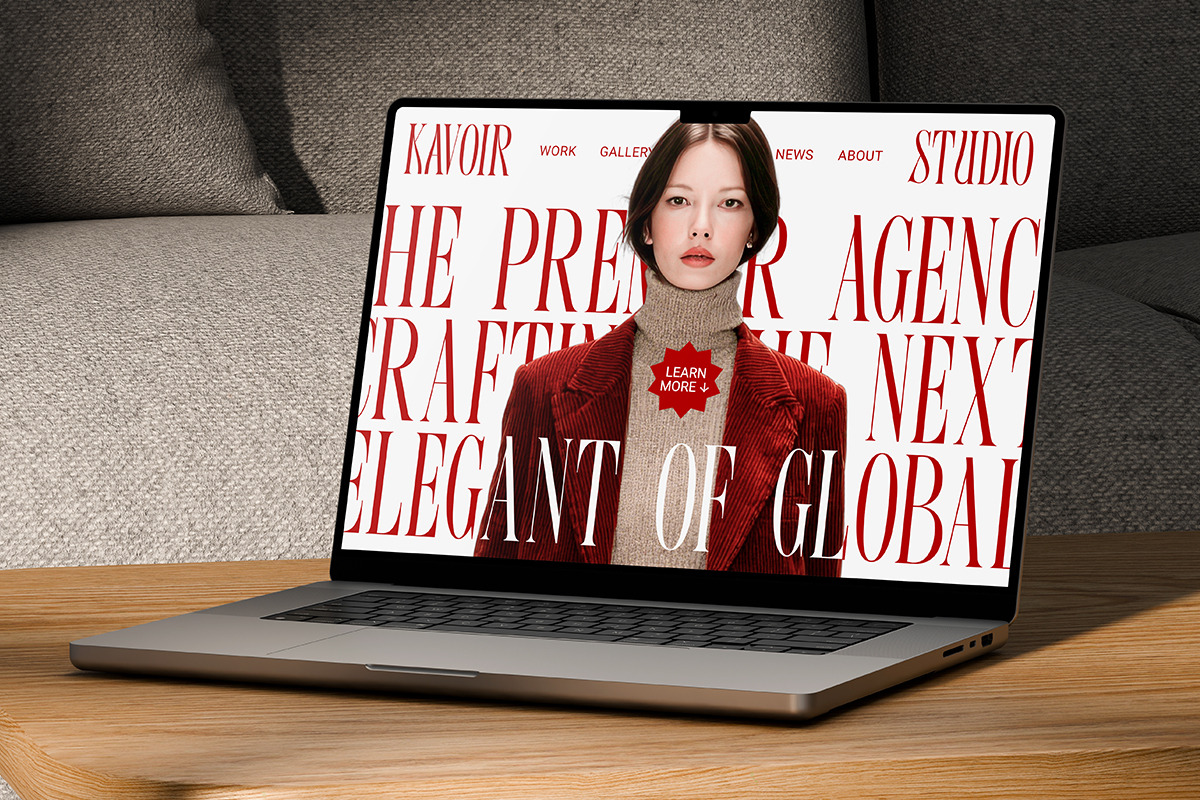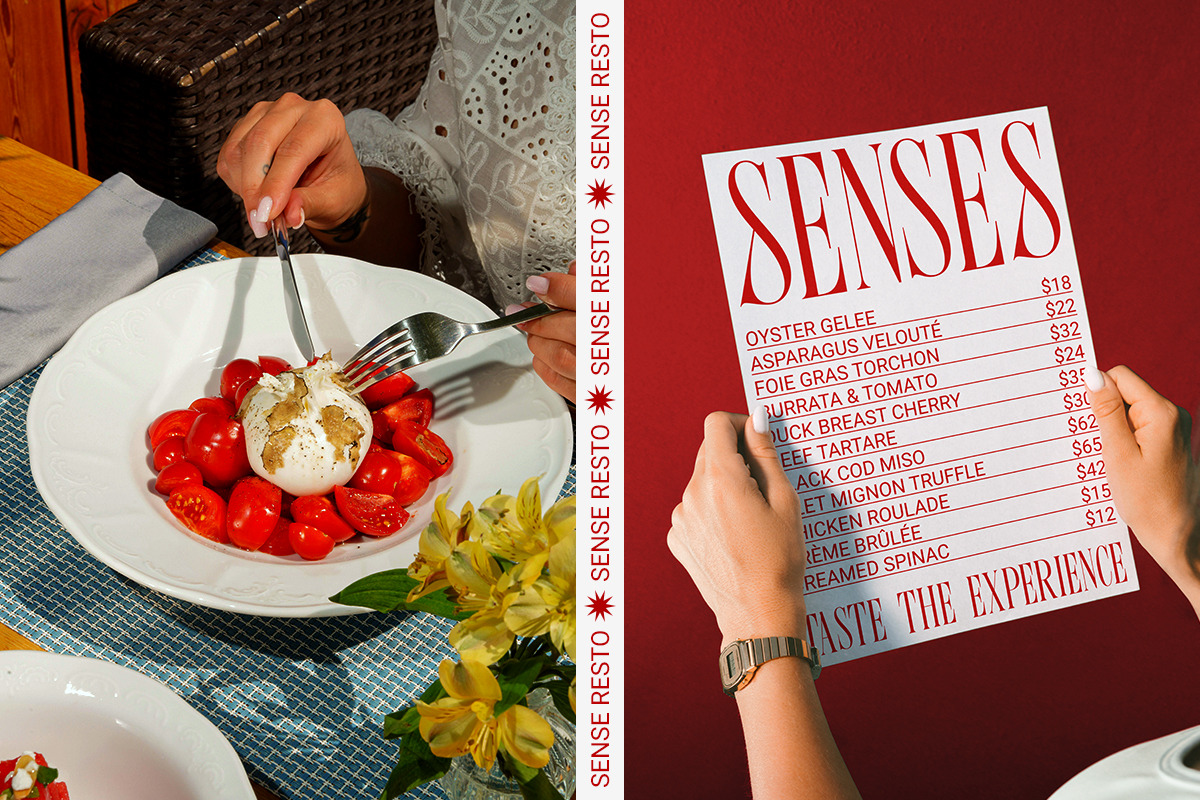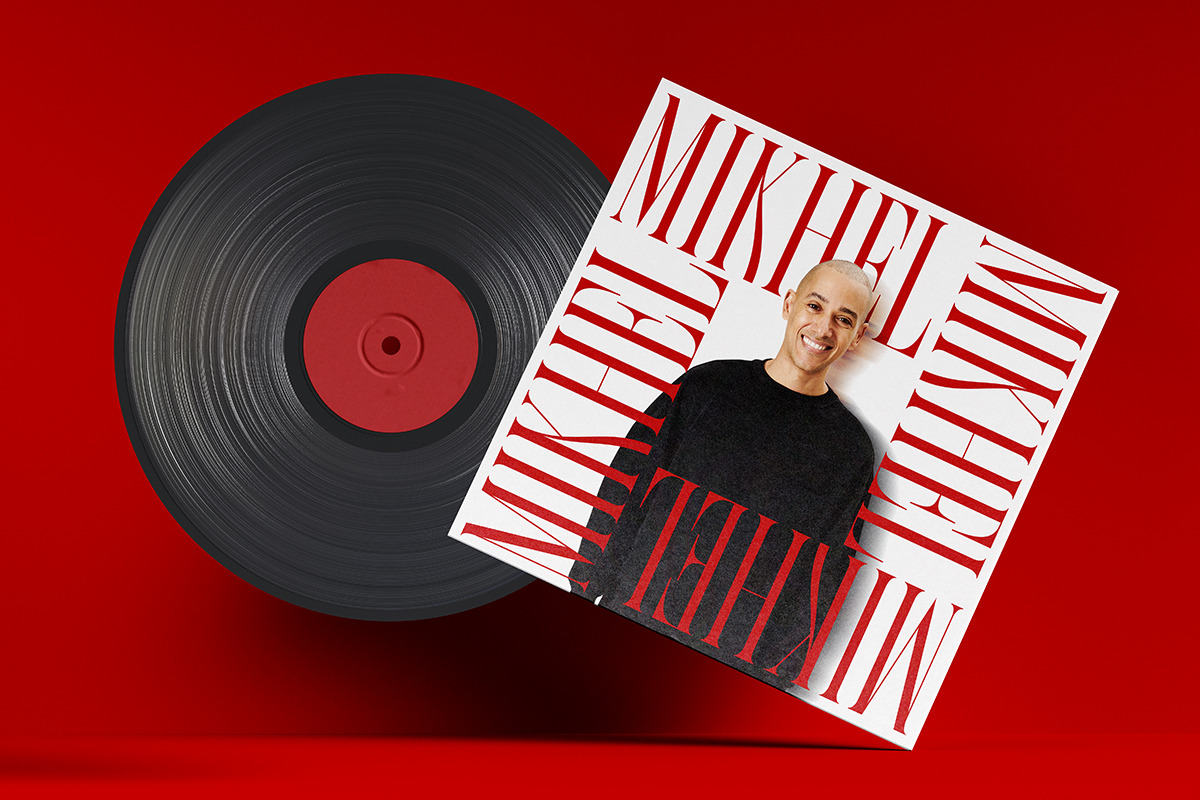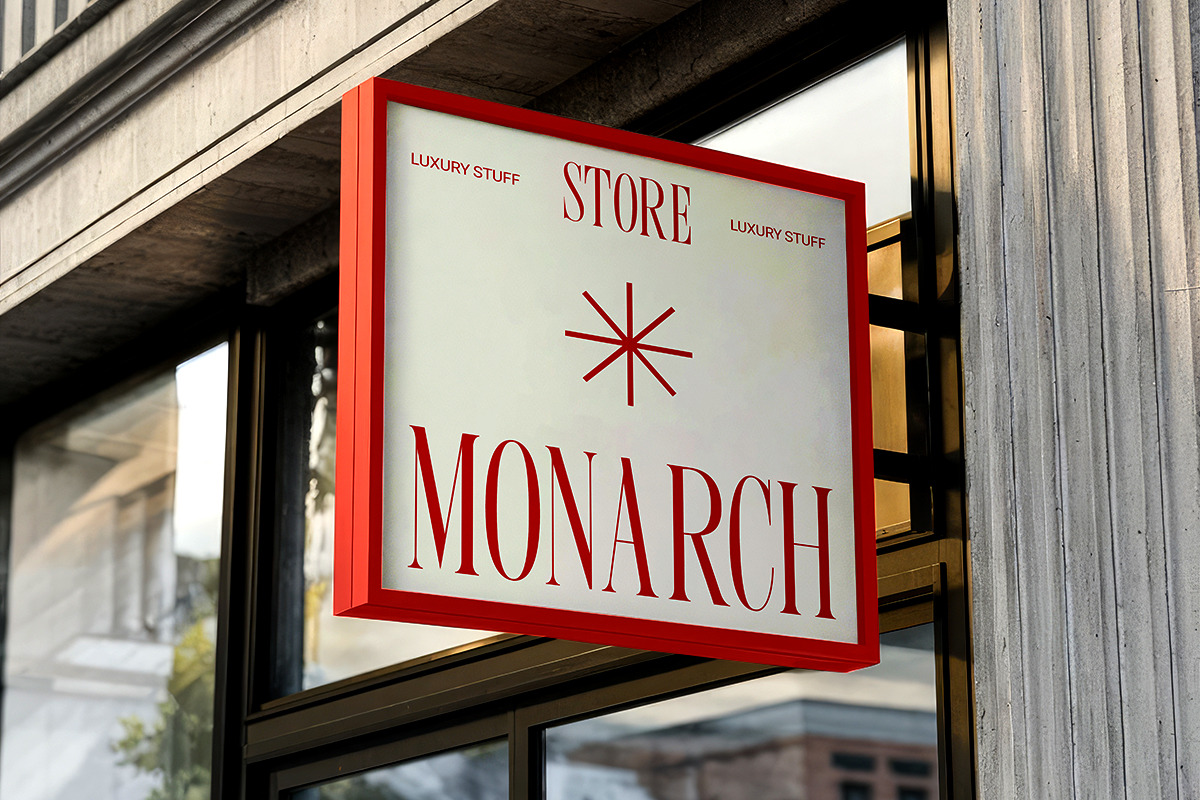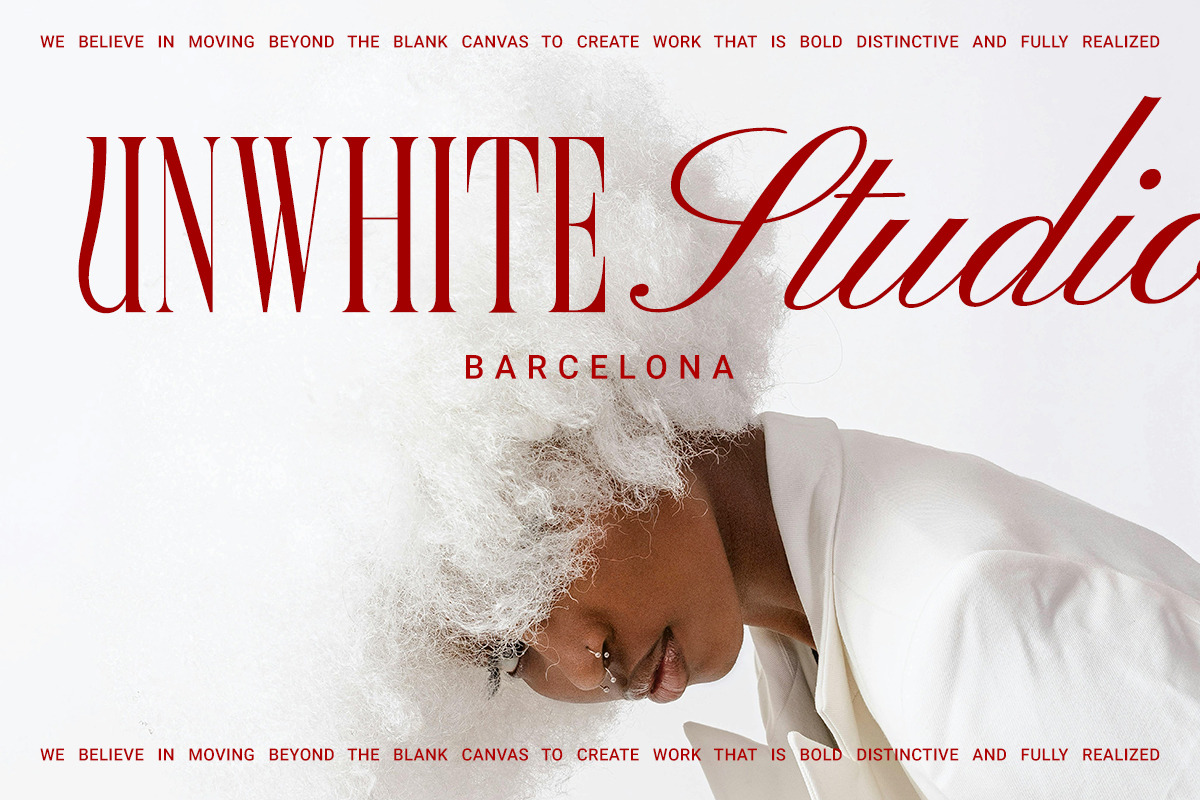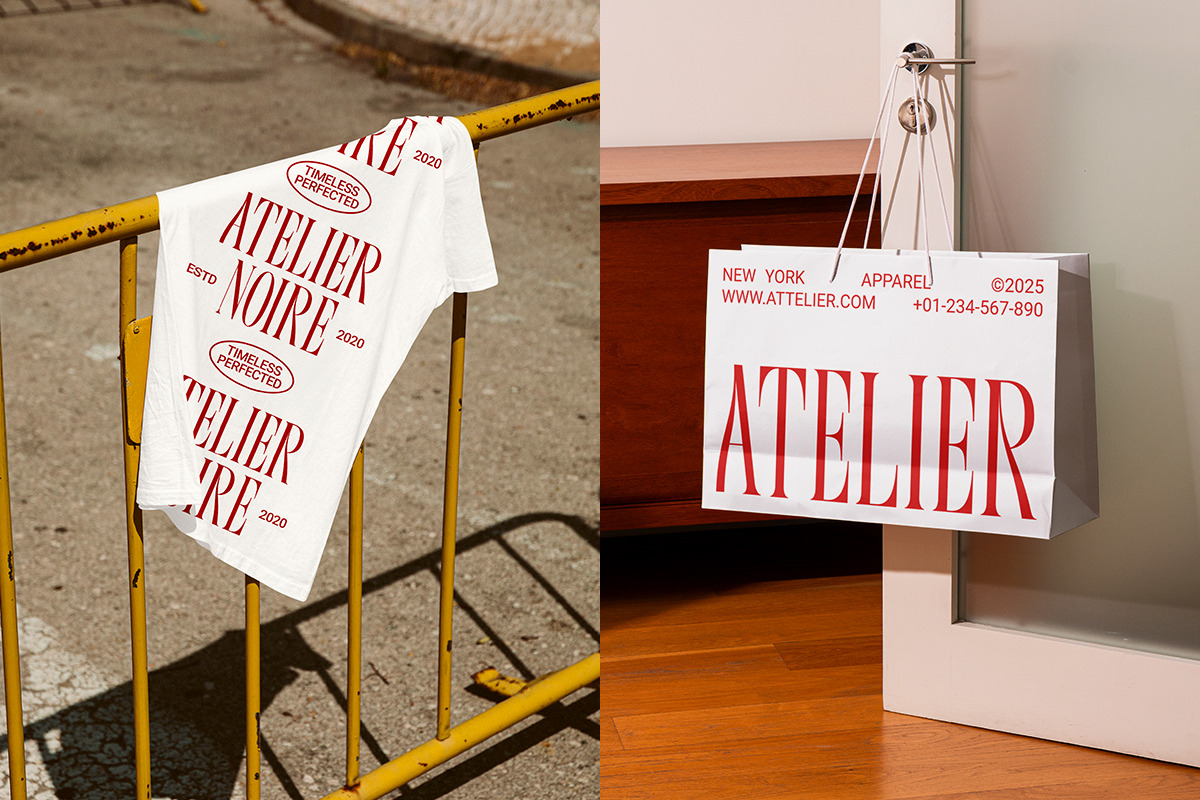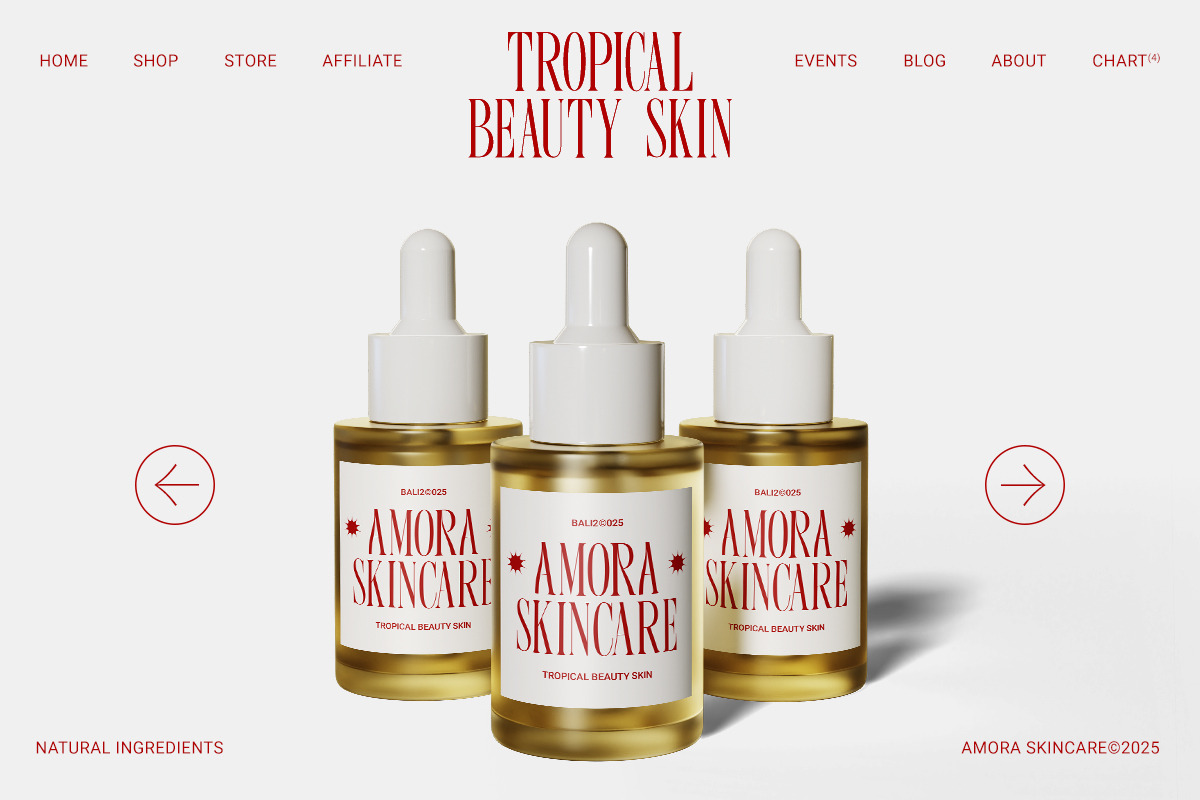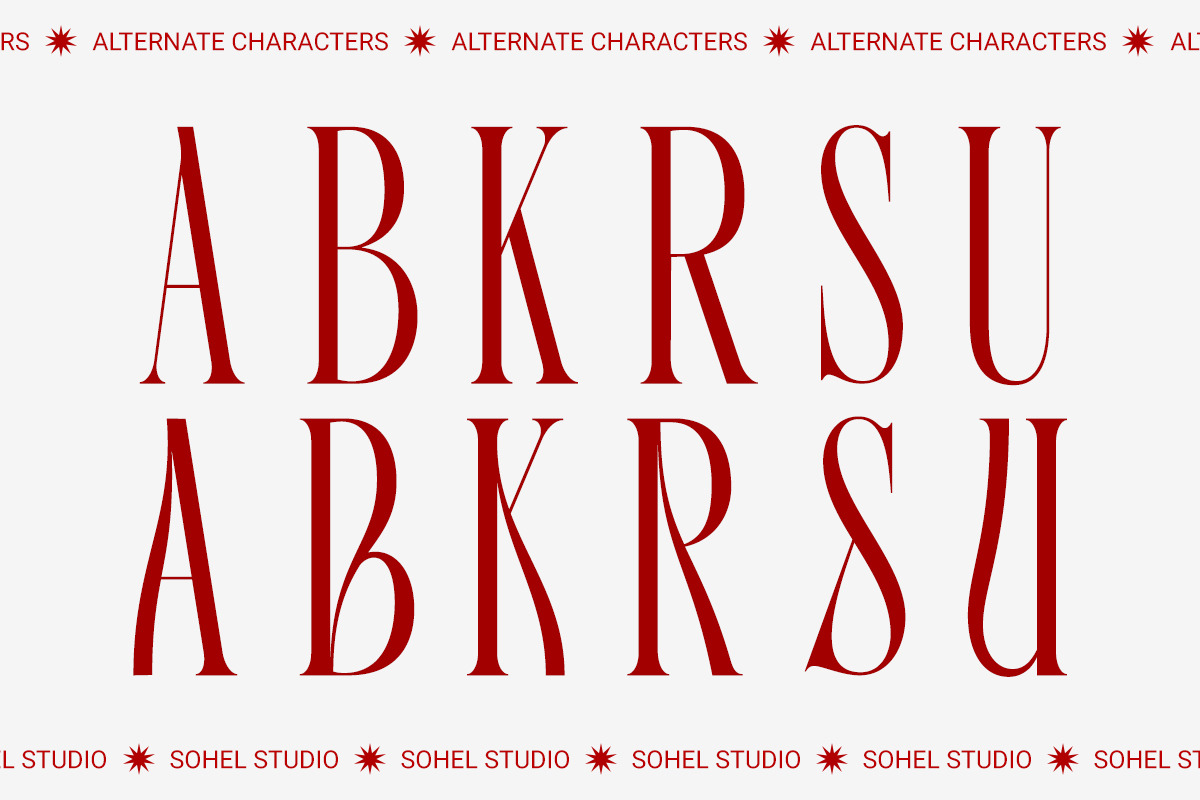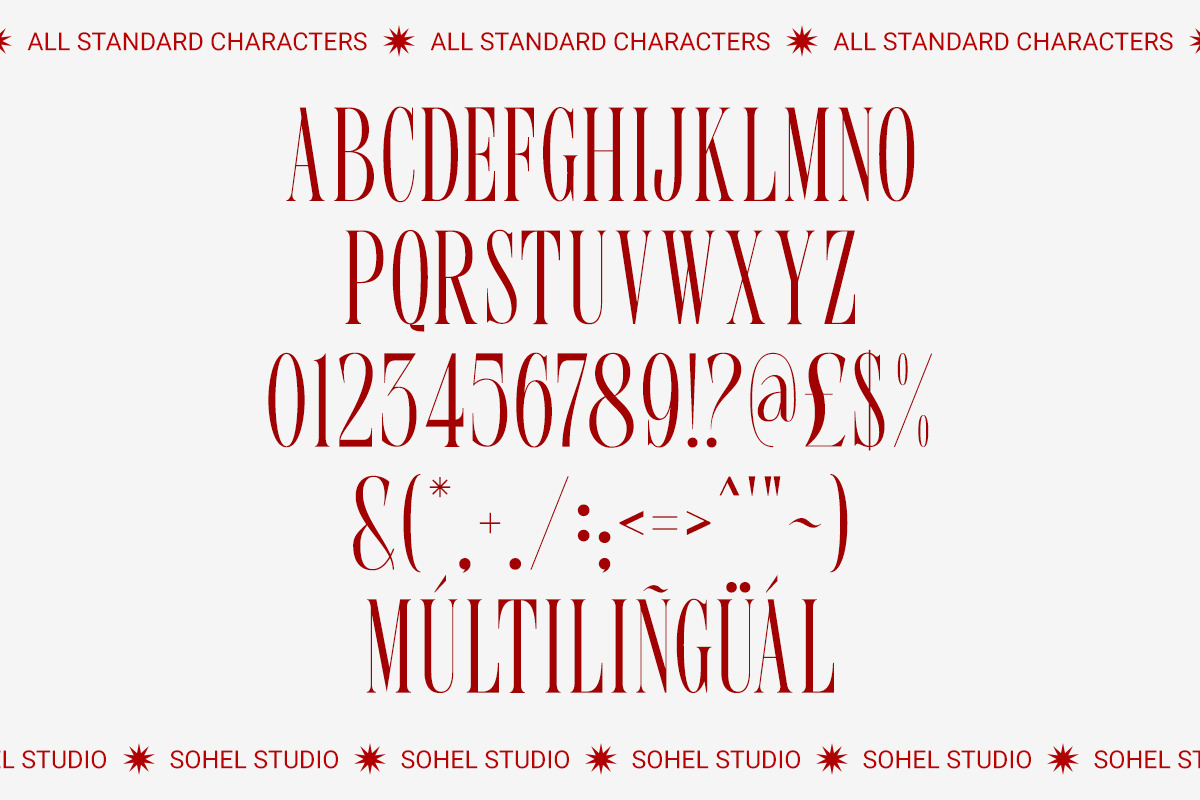
Bergu – Editorial Display Serif
BERGU is a luxury display condensed serif font designed for high-end branding, editorial design, fashion magazines, posters, logos, and premium packaging. This modern serif typeface combines elegant contrast, tall proportions, and stylish alternate characters, making it perfect for designers who need a distinctive and sophisticated typography solution.
Crafted with a condensed structure and refined curves, BERGU delivers strong visual impact while maintaining readability. Its unique letterforms and stylistic alternates allow you to create custom logotypes and expressive headlines effortlessly. Whether you are working on editorial layouts, luxury branding, logo design, packaging, advertising, or social media graphics, this font provides a timeless and upscale aesthetic.
- Display condensed serif typeface
- Stylish alternate characters
- Uppercase letters
- Numerals and punctuation
- OpenType features
- Luxury logo design
- Fashion and editorial design
- Magazine headlines
- Poster and billboard typography
- Brand identity
- Packaging design
- Invitation and wedding design
- Social media branding
- High-end product advertising
Why Choose BERGU? If you are looking for a modern serif font, condensed display font, or luxury editorial typeface that feels exclusive and premium, BERGU is the perfect choice. Its elegant letter shapes, high-contrast strokes, and alternate glyphs give your design a professional and custom-crafted look that stands out.